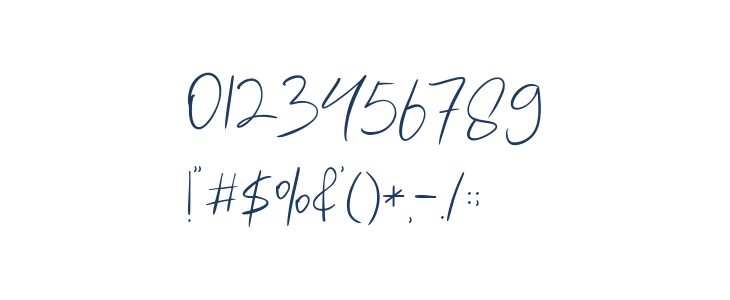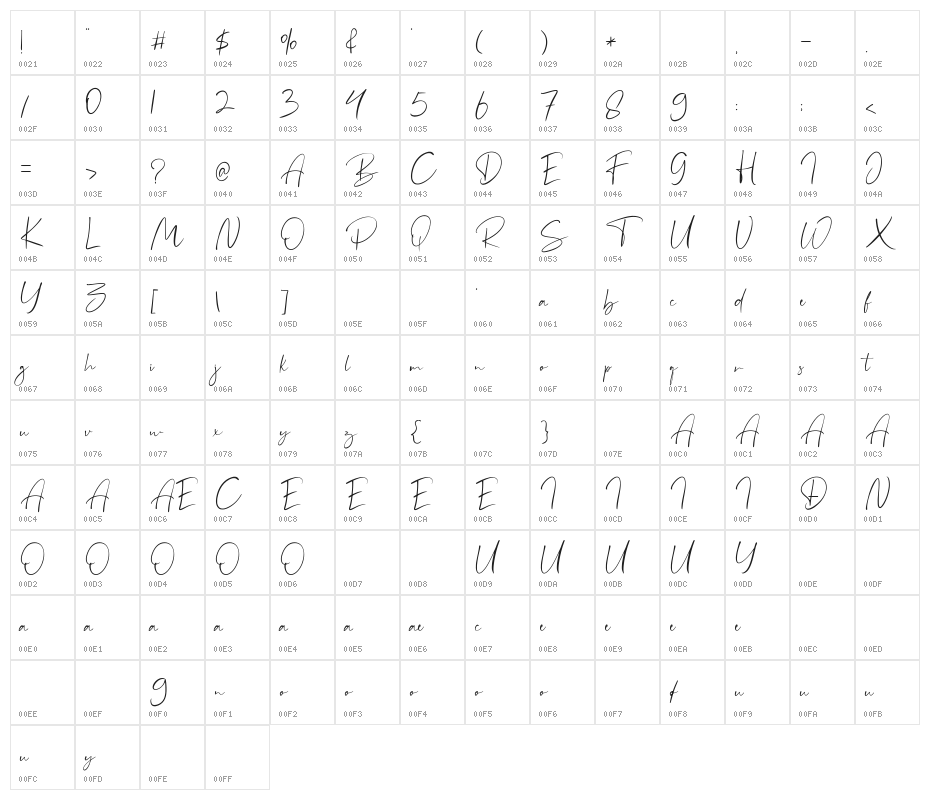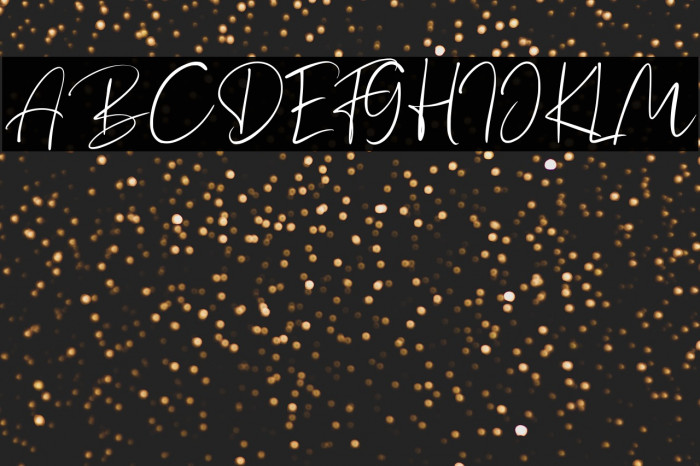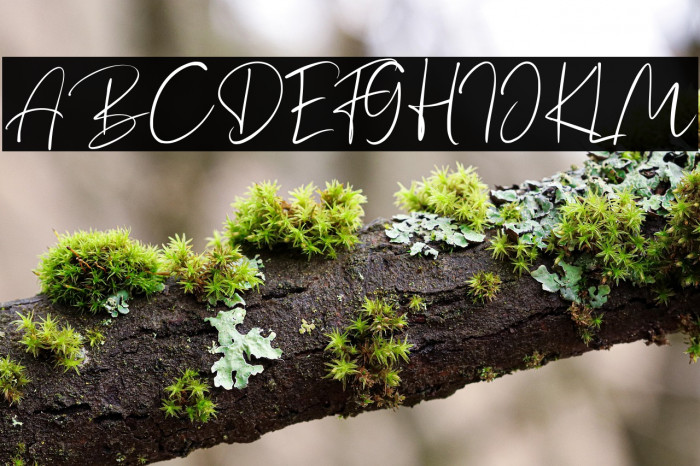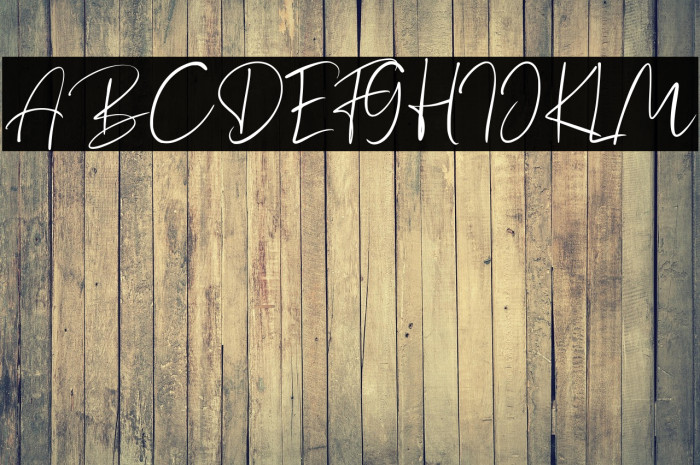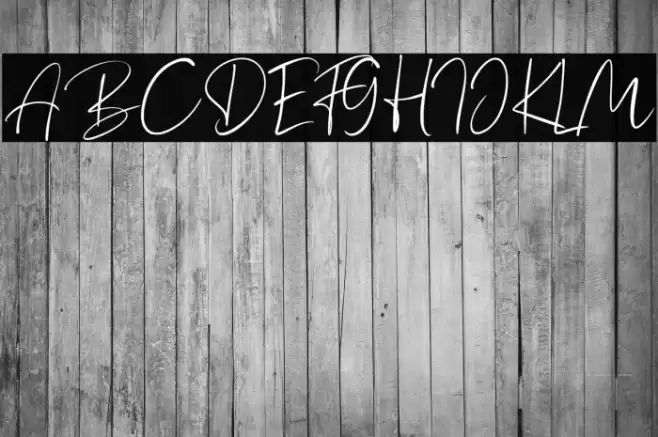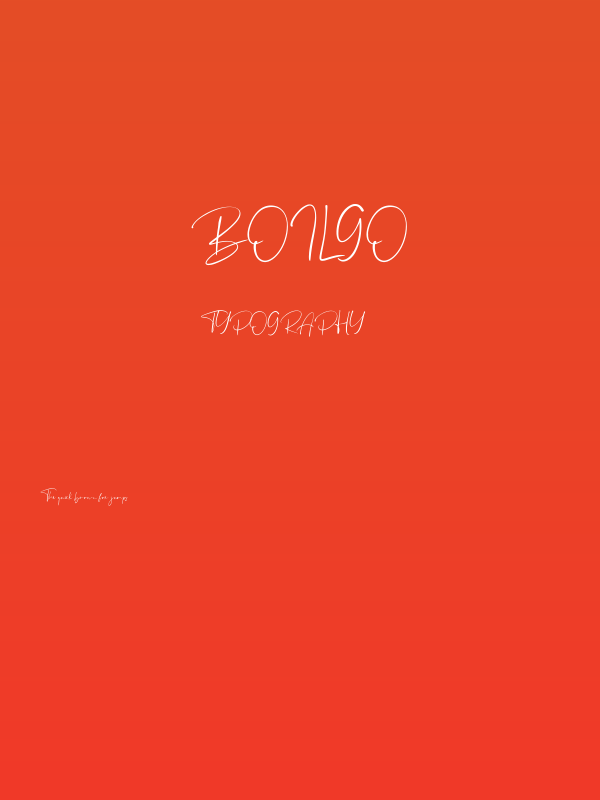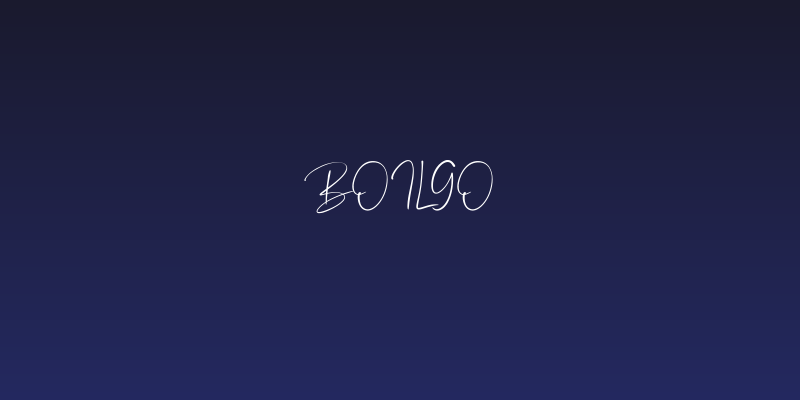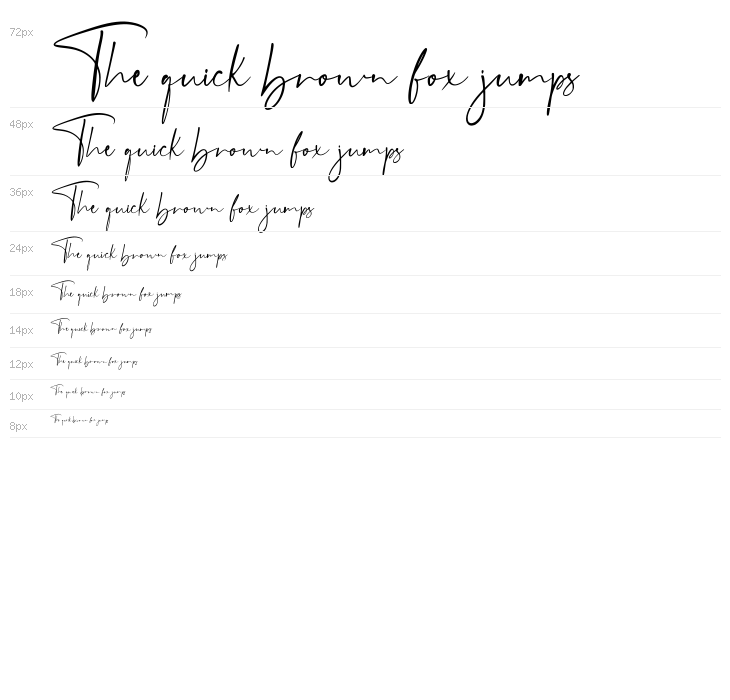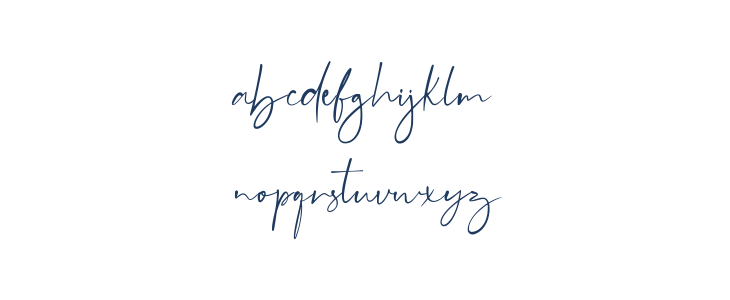
Boilgo Font
Boilgo Description
This font features a dynamic and fluid script style, characterized by its elegant and flowing letterforms. The uppercase letters exhibit a sense of movement with their sweeping curves and varying stroke widths, creating a lively and expressive appearance. The lowercase letters maintain a consistent style, with graceful loops and connections that enhance readability while retaining a handwritten charm. The numerals are distinct and maintain the same fluidity, ensuring they complement the overall aesthetic. Special characters are thoughtfully designed to match the script's playful yet sophisticated nature, making it suitable for creative and artistic projects.